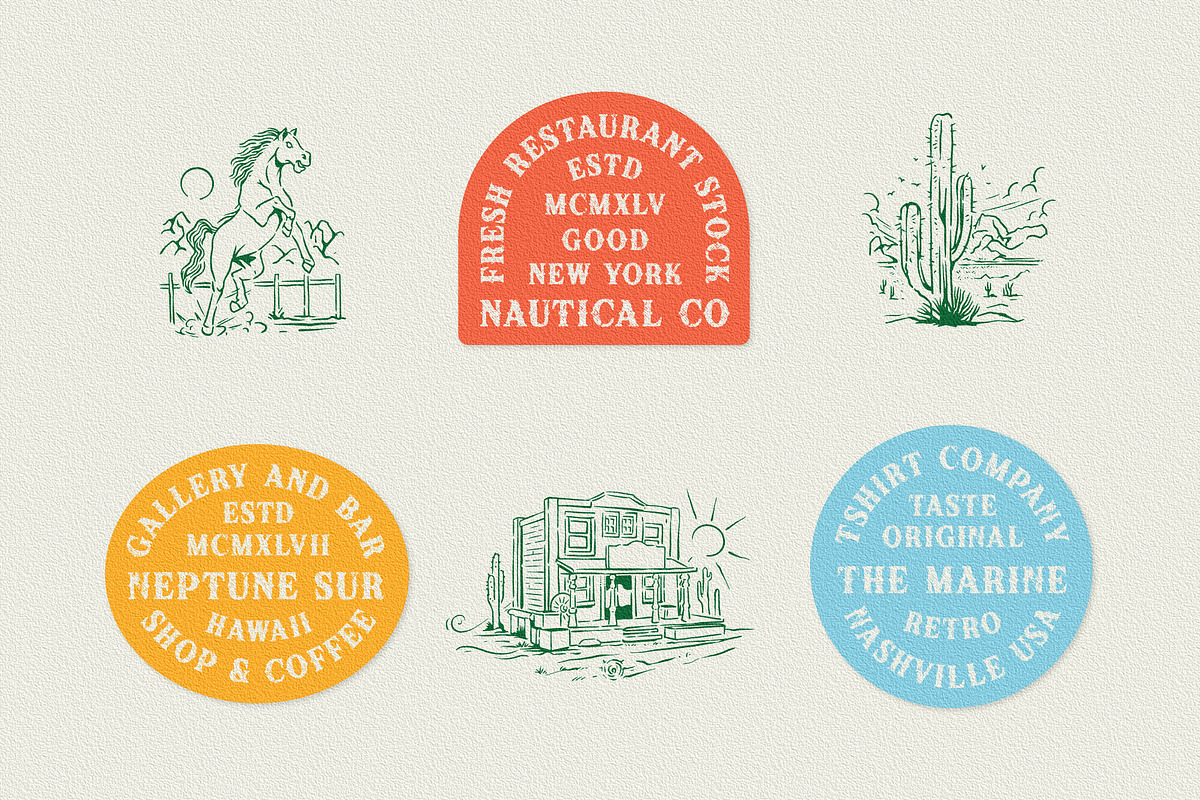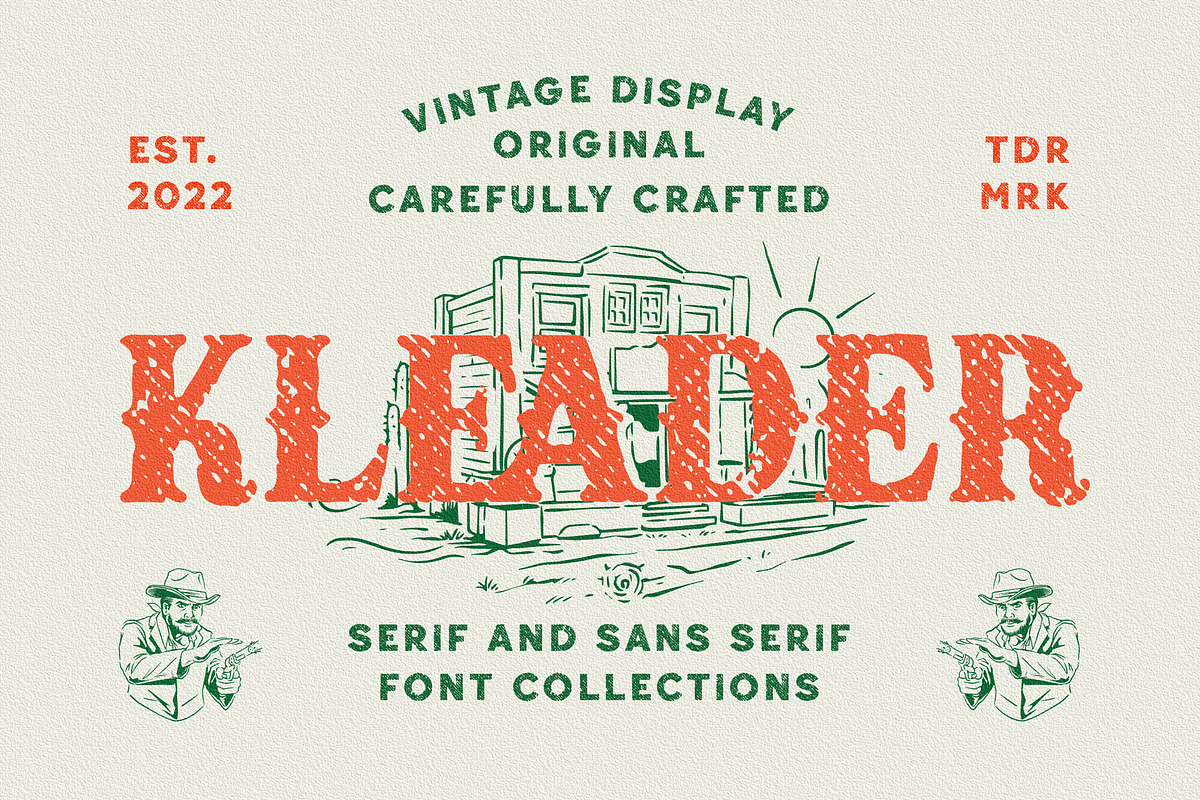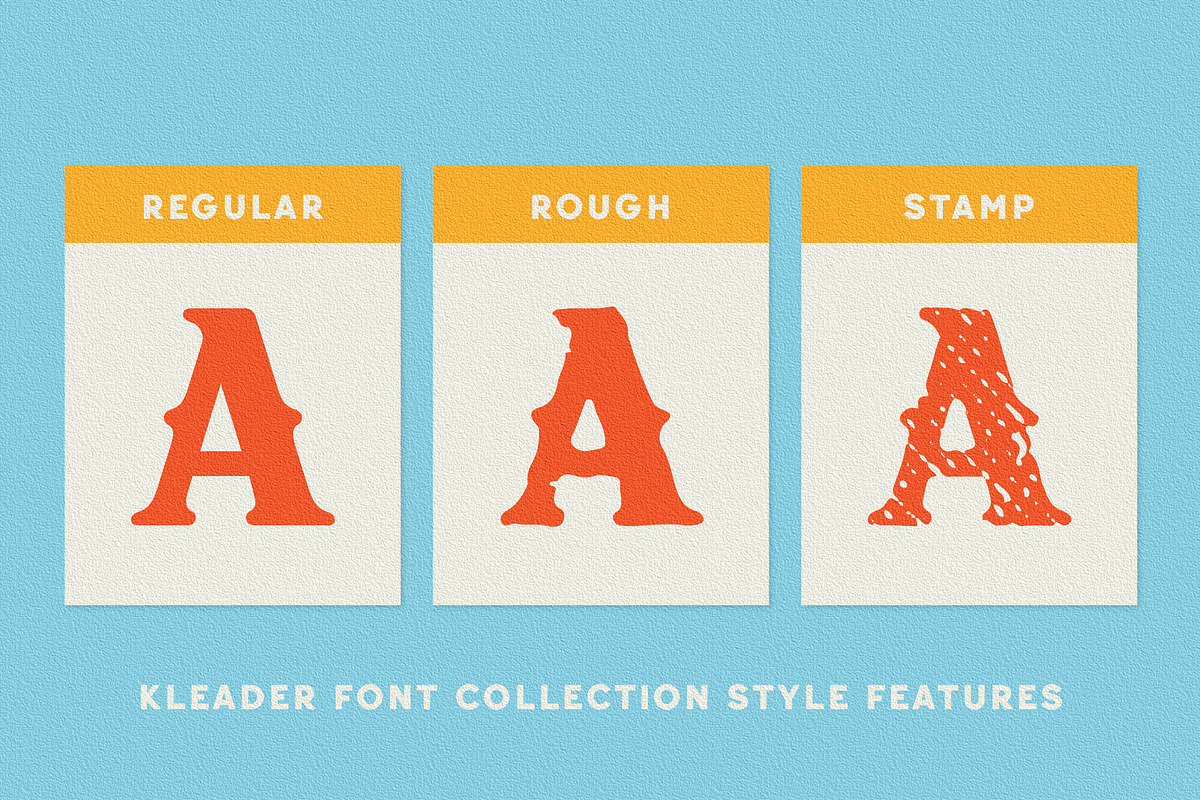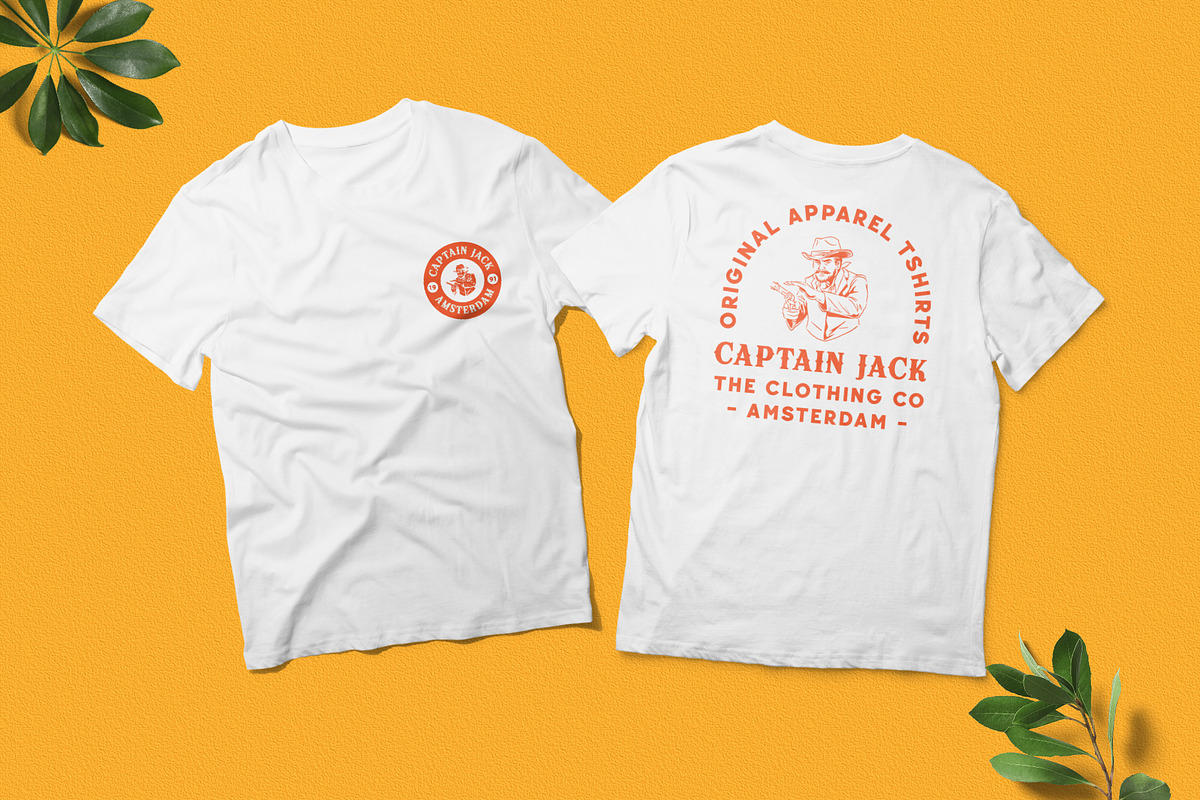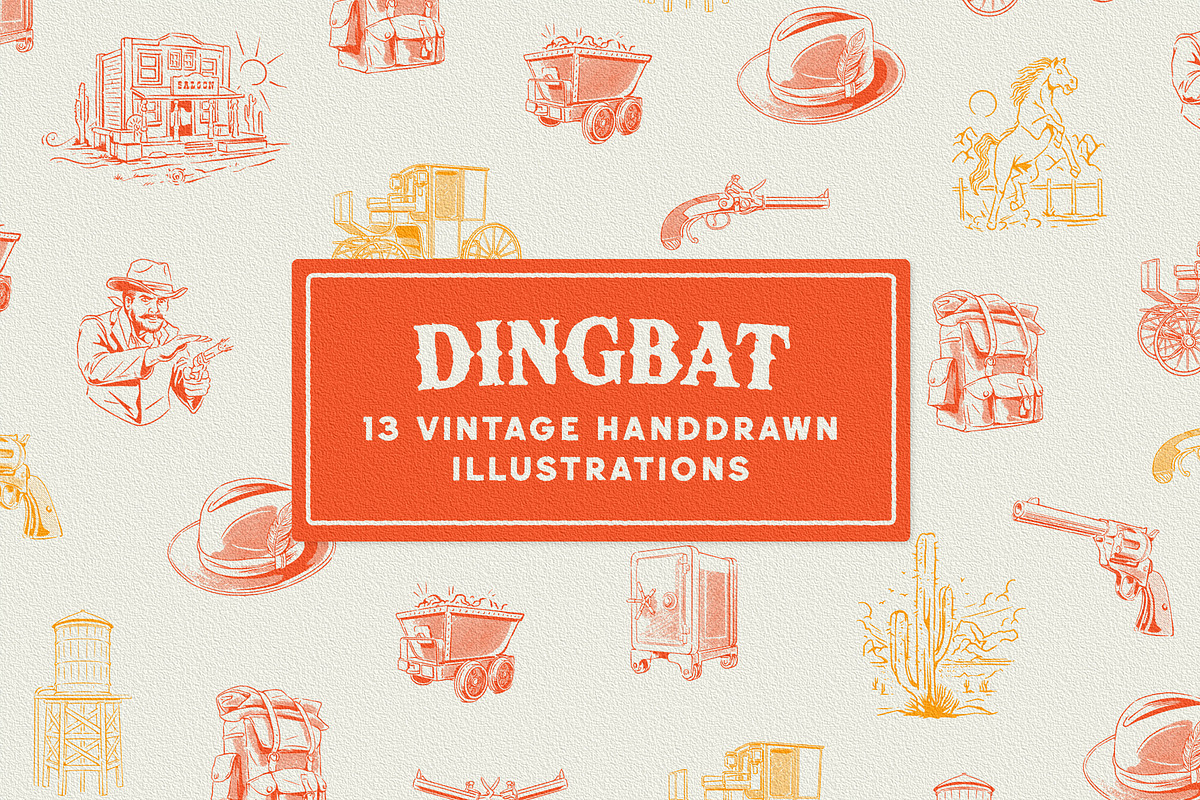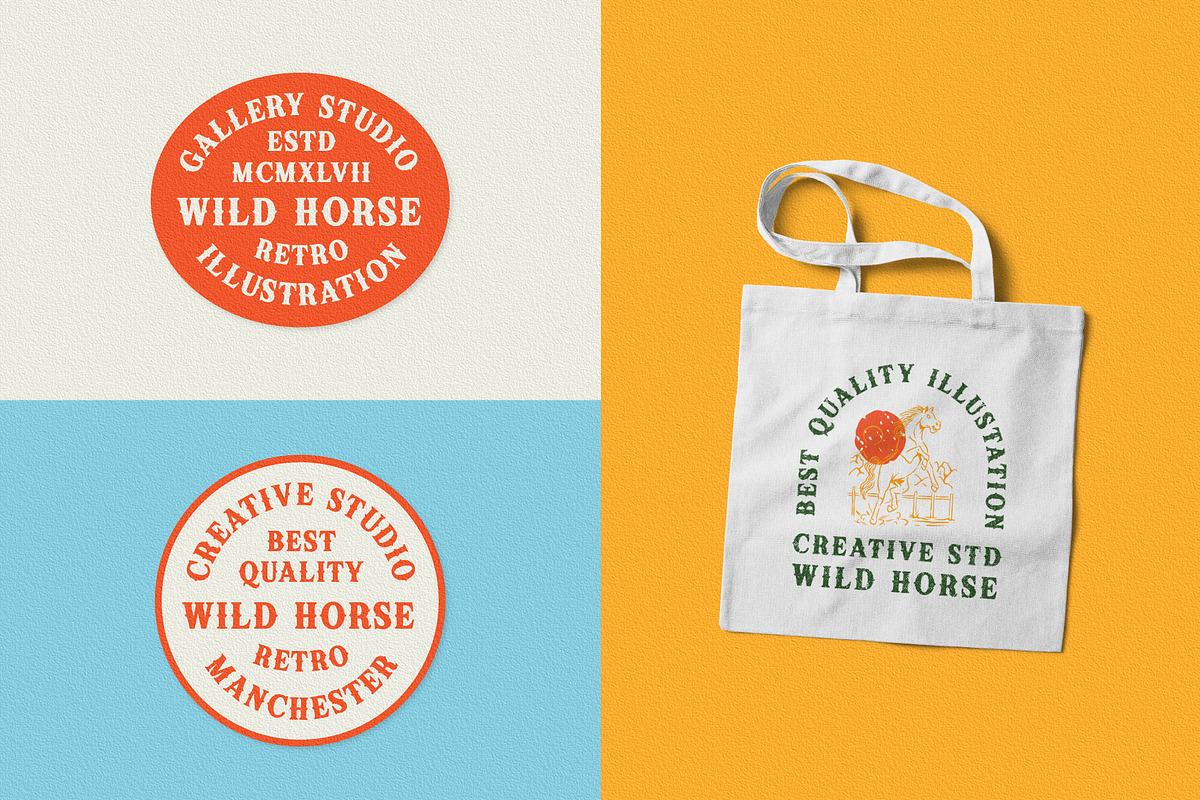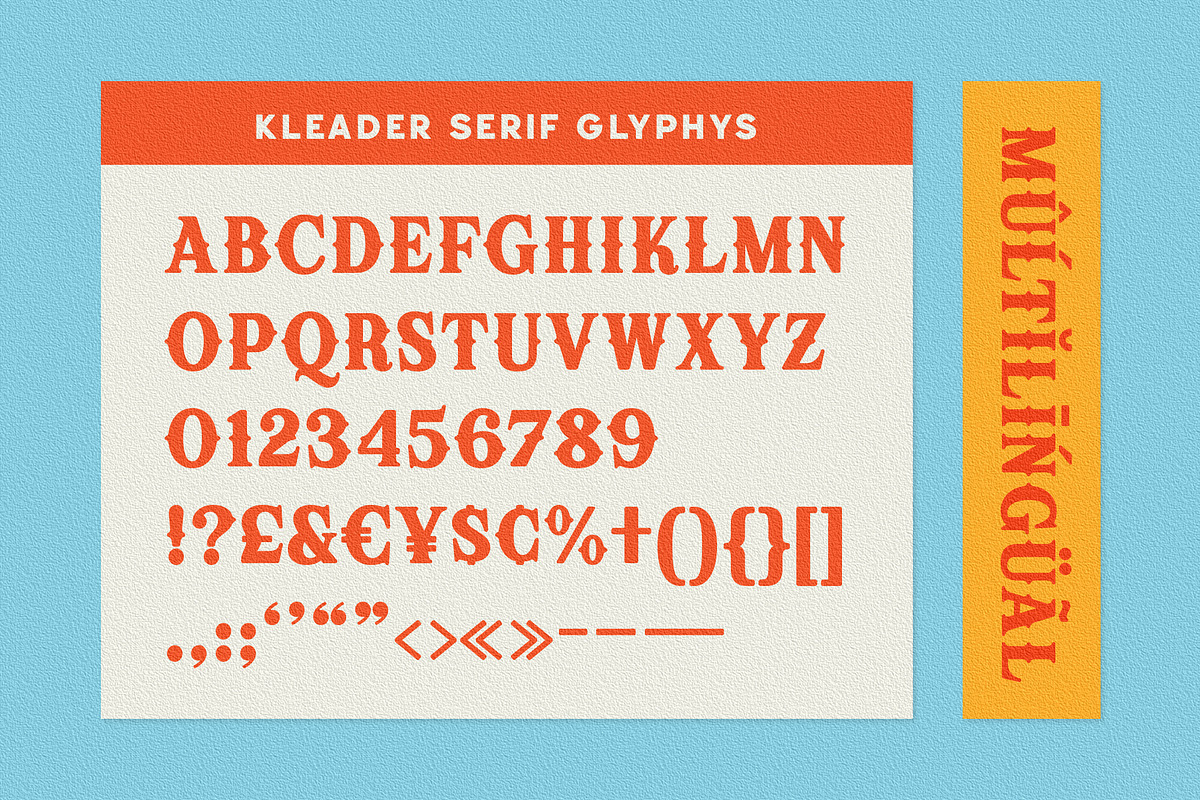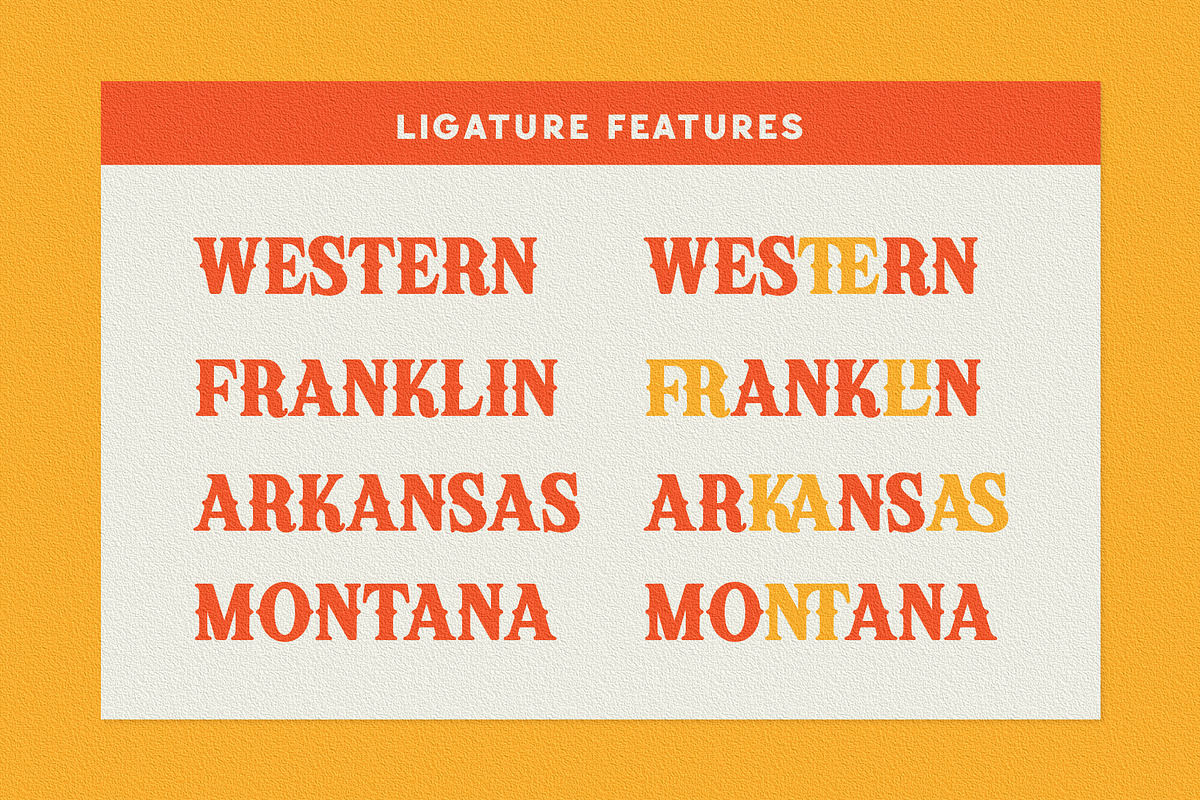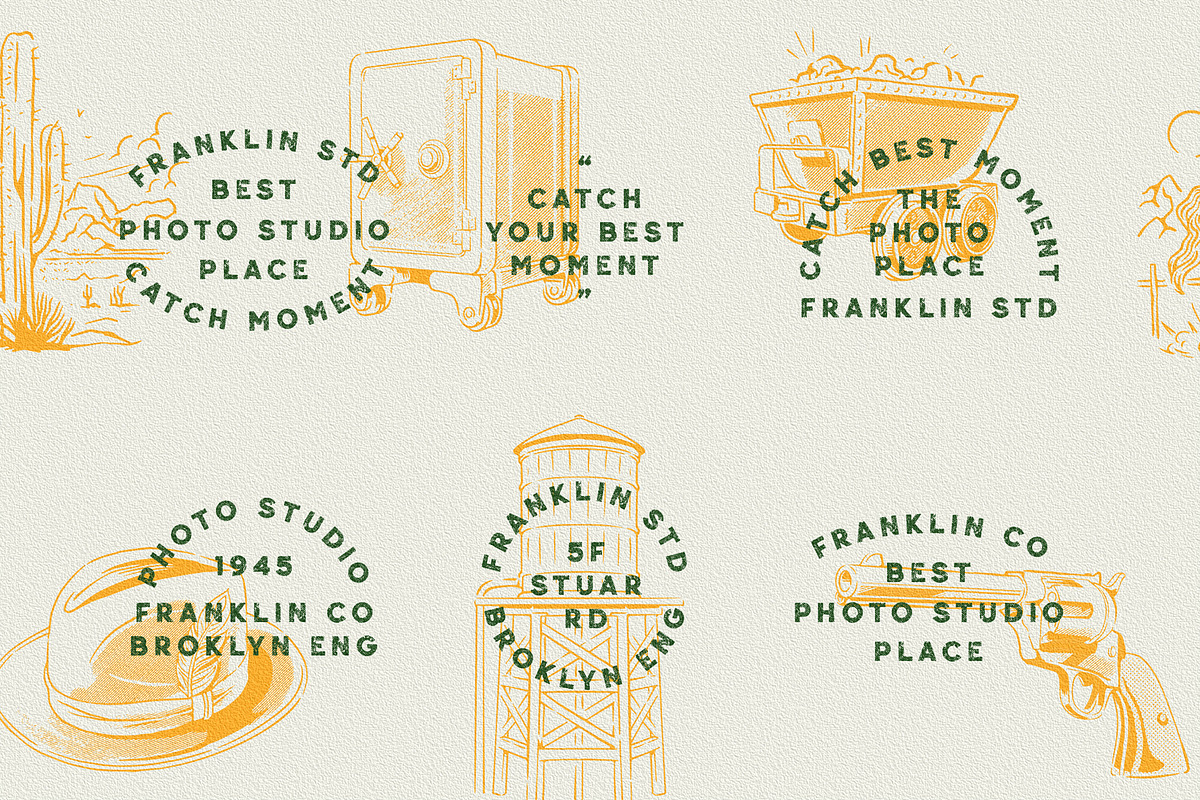
Kleader - Display Font
The Kleader Font is inspired by authentic typefaces in old posters. These font collections contain serif and sans serif fonts. Every font comes with 3 style typefaces (regular, rough and stamp). Kleader gives more extras 1 pack illustrations. This font includes some ligatures. The Kleader matches apply in some designs such as the logo, poster, label, badge, packaging, t-shirt, branding, quotes and more custom design.
Kleader features :
- 3 style typefaces (regular, rough and stamp)
- All-caps, numeral, symbol and punctuation